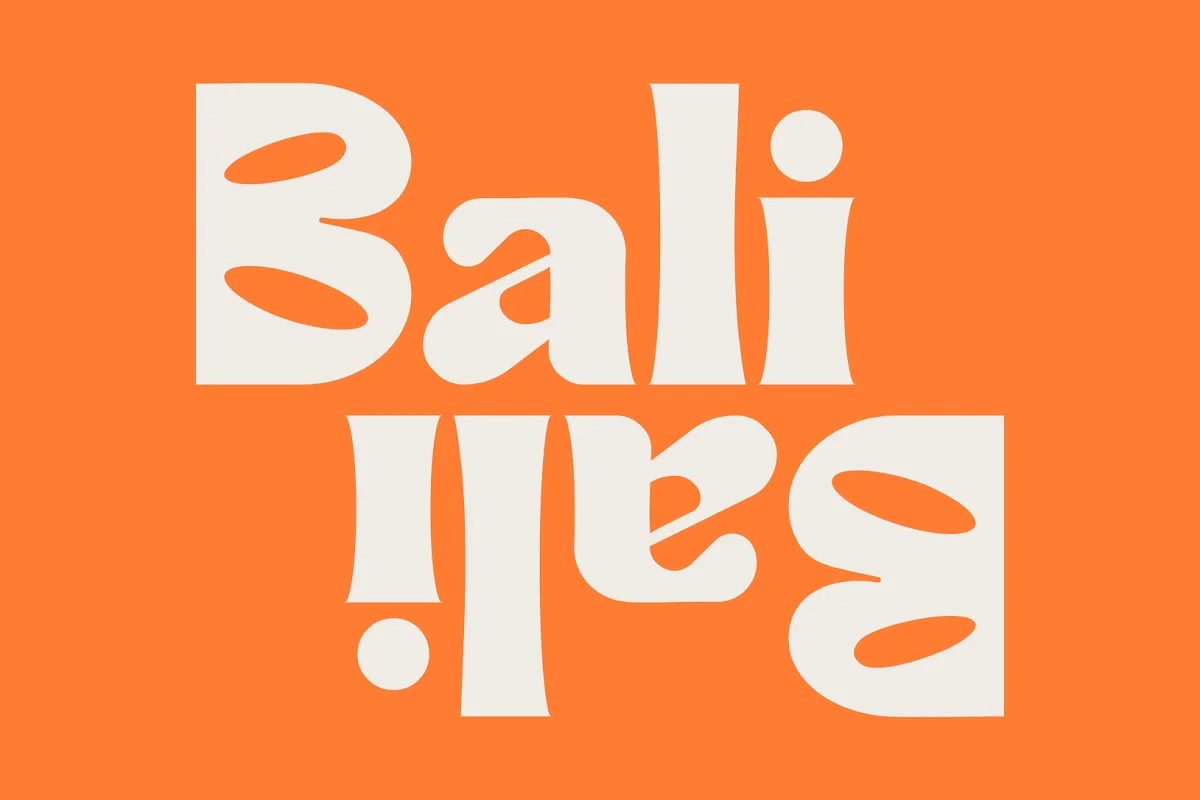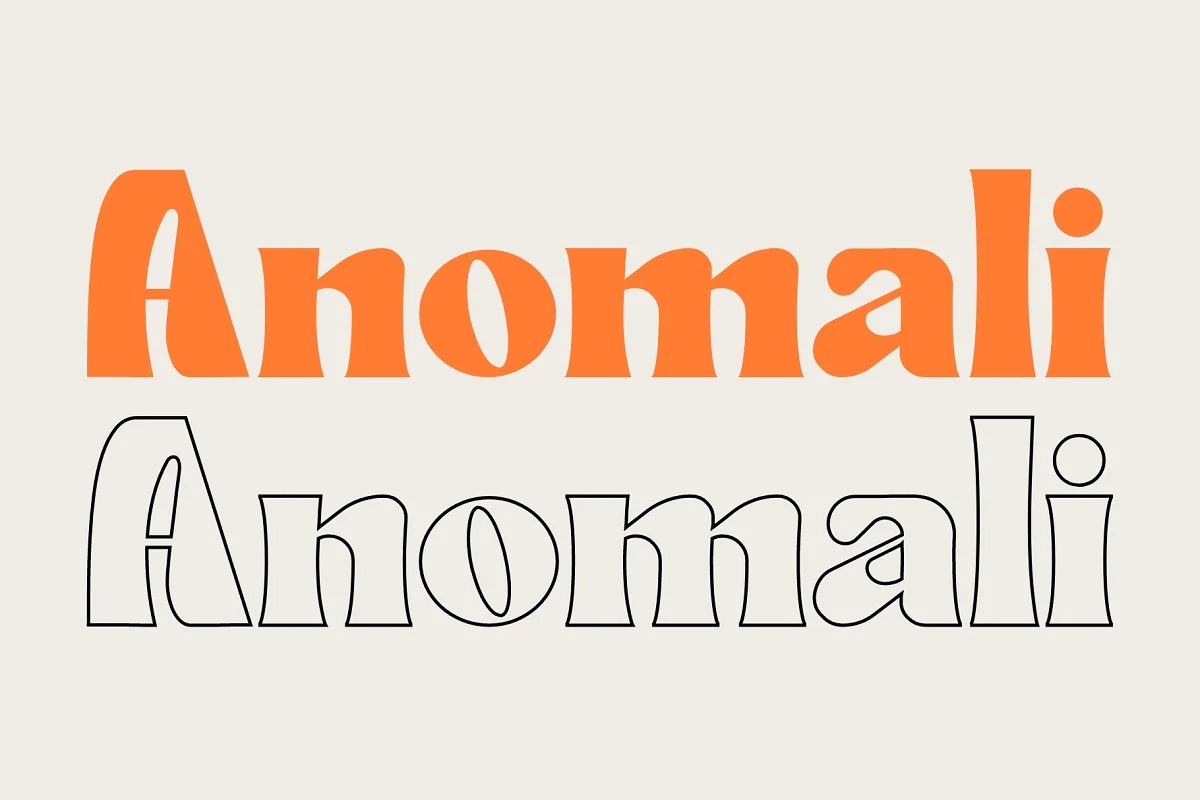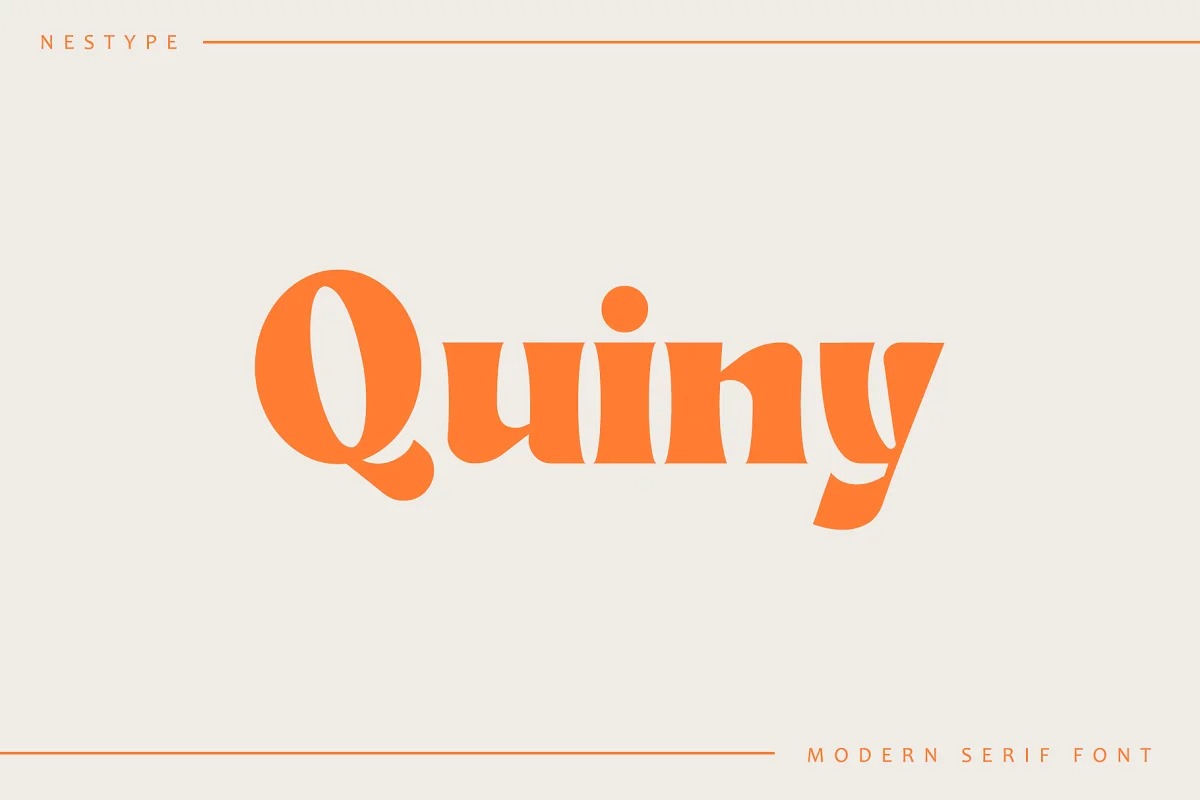
Quiny Serif Font
It’s a classic, bold, trendy serif font for your fancy projects. Elegant, fashion and classic style on Moramit font will be great for any branding project. This typeface is perfect for an elegant logo, branding, invitation, layout magazine, home & decor layout, beauty product, packaging product, quotes, or simply as a stylish text overlay to any background image.